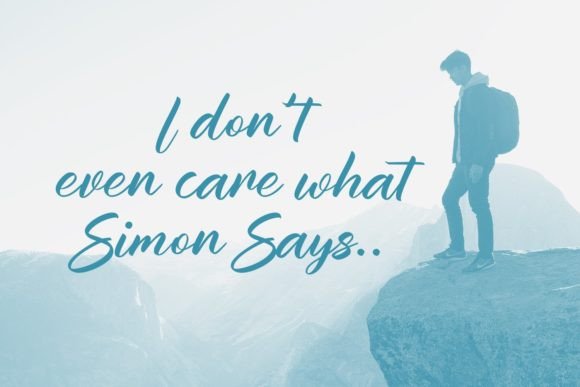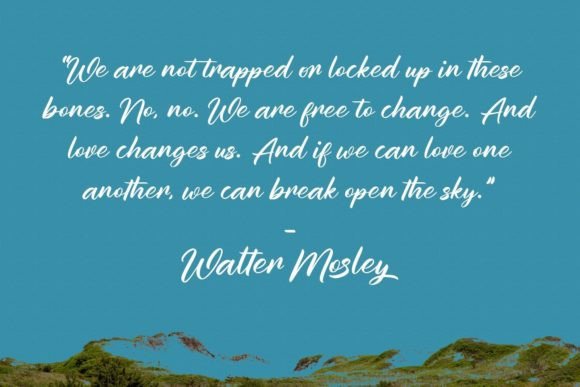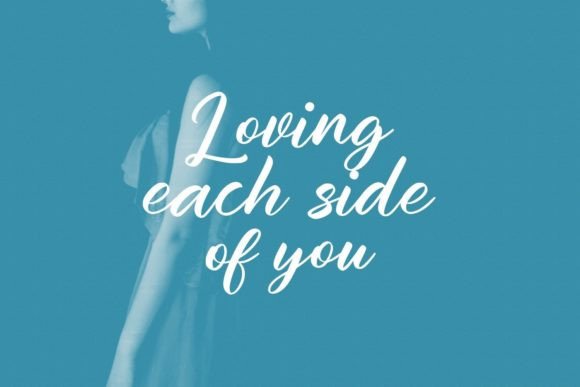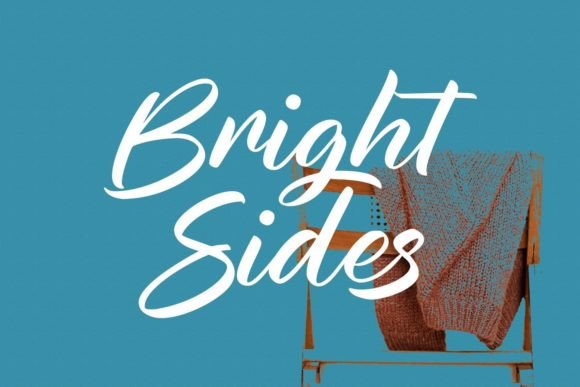
About Simon Drake Font
Simon Drake is a casual and contemporary script font that boasts medium contrast strokes, playful characters with ligatures, and alternates, providing you with ample creative possibilities. This versatile font is well-suited for a range of design applications, including logo design, social media graphics, movie titles, book titles, short and long text, as well as serving as an excellent choice for secondary text when paired with a sans or serif font. Simon Drake is crafted to help you create stunning and engaging works across various design projects.
The medium contrast strokes of Simon Drake contribute to its modern and easy-to-read appearance, making it suitable for both headline and body text. The playful characters and ligatures add a touch of personality and uniqueness to your designs, ensuring they stand out and capture attention.
Whether you’re working on a logo that requires a casual and contemporary script or looking to enhance social media graphics with a touch of flair, Simon Drake offers the versatility needed for a variety of creative applications. Its adaptability extends to movie and book titles, where it can add a dynamic and modern element to the overall design.
Additionally, Simon Drake’s alternates provide extra creative options, allowing you to experiment with different letterforms and create custom looks for your projects. This flexibility makes it a valuable tool for designers seeking to express their creativity in diverse ways.
In summary, Simon Drake is not just a font; it’s a design asset that combines casual elegance with modern charm. Whether you’re crafting logos, titles, or various text elements, let Simon Drake be the font that adds a touch of playfulness and creativity to your work. Explore its ligatures, alternates, and medium contrast strokes to make your designs truly stunning and captivating.